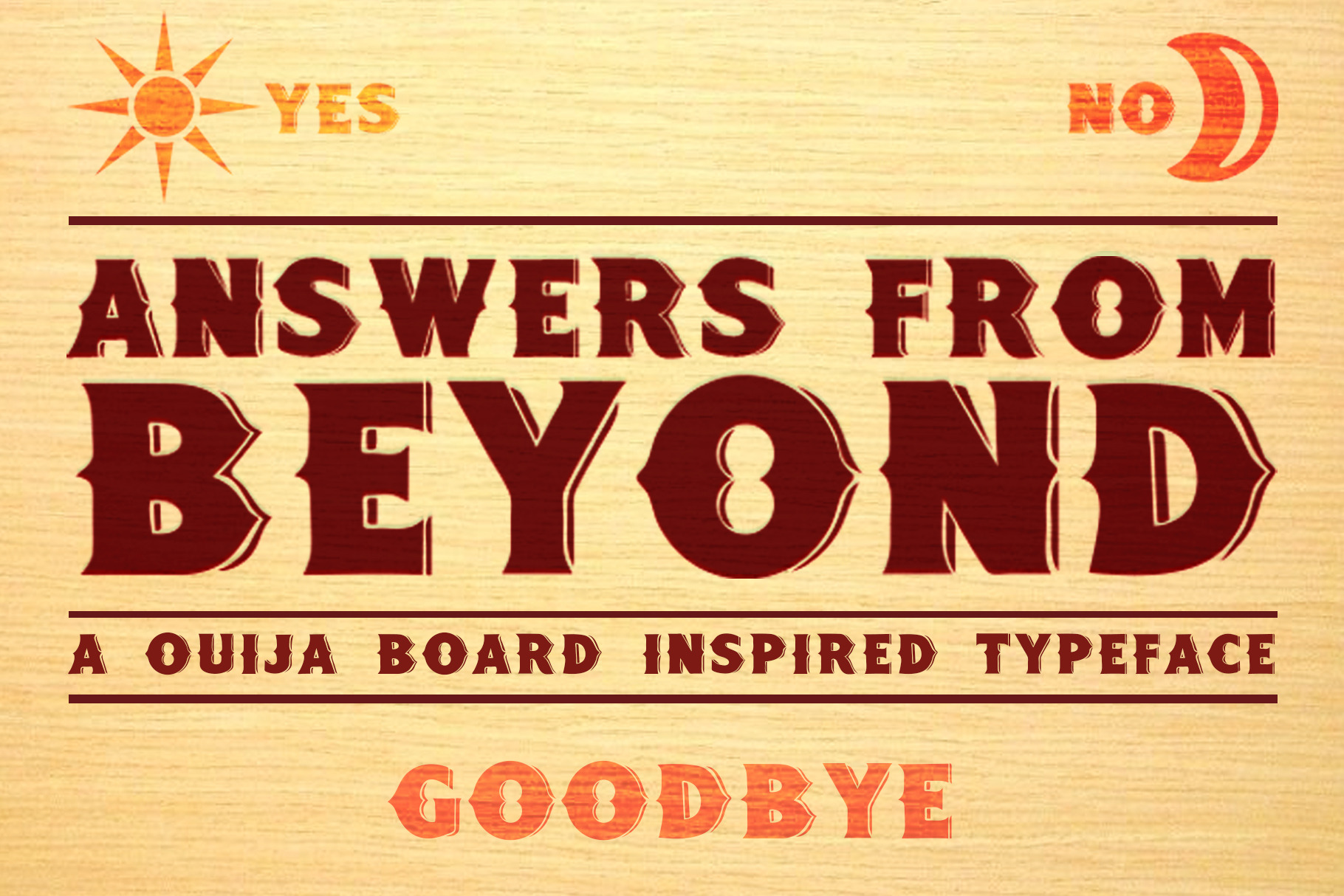
Answers From Beyond - Typeface
Channel your Great Aunt Sally or say Hi to Captain Howdy.. with this typeface you can commune with the spirits! .. or something... A typeface inspired by vintage ouija boards..